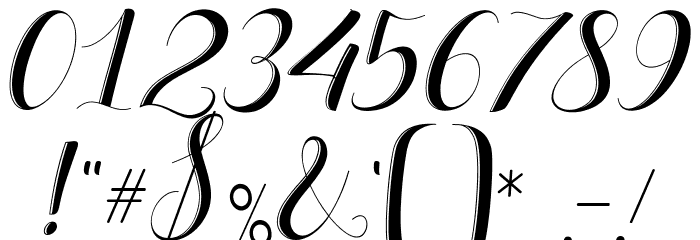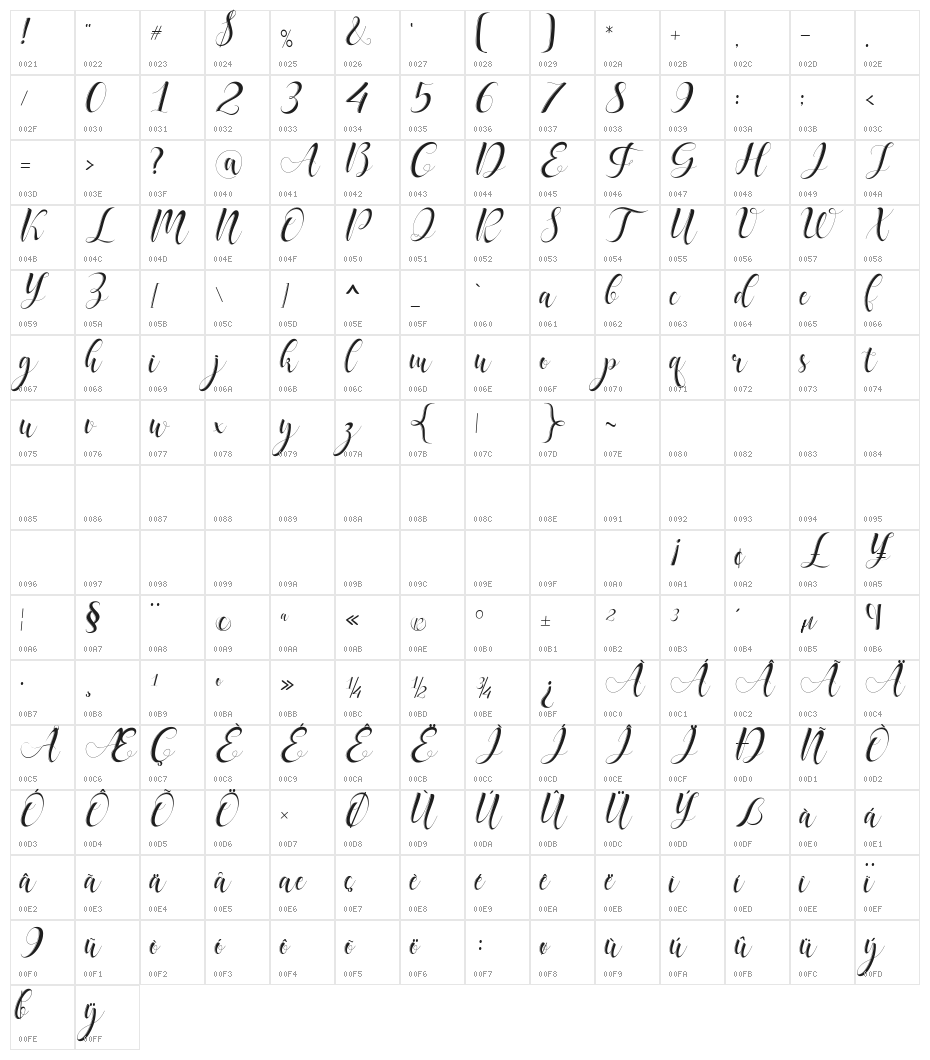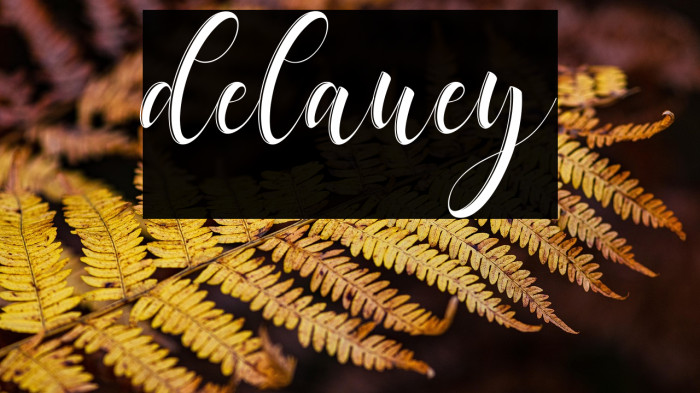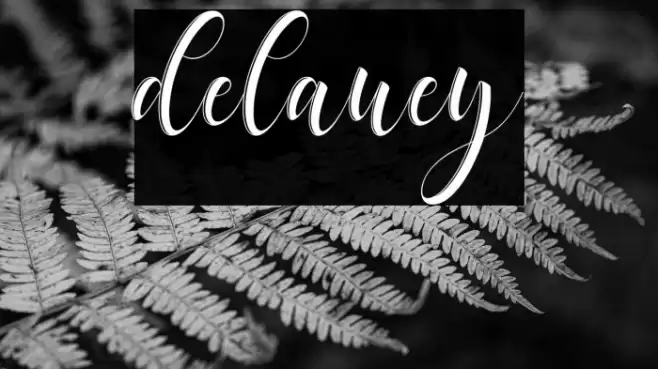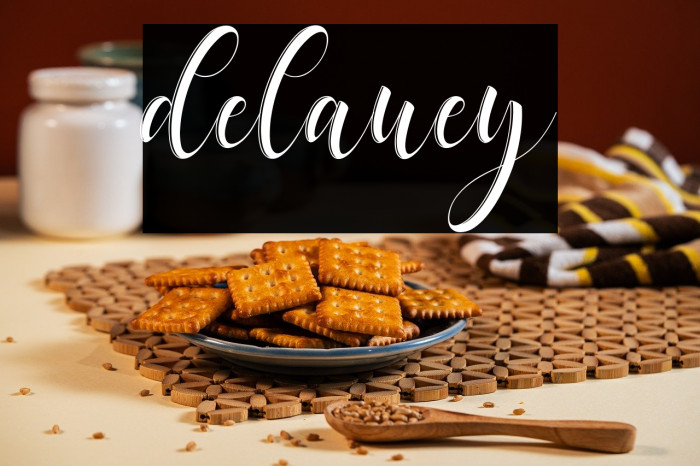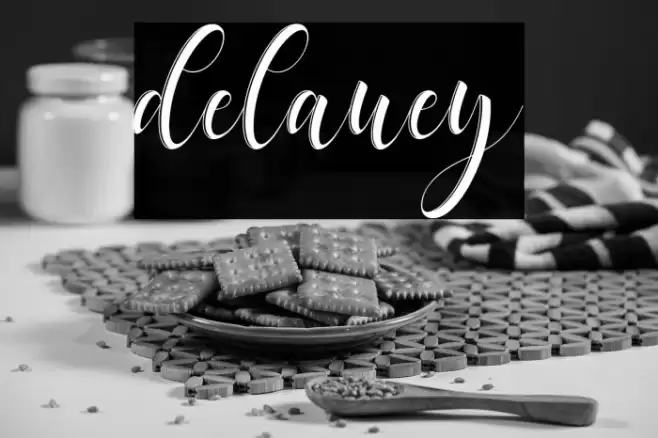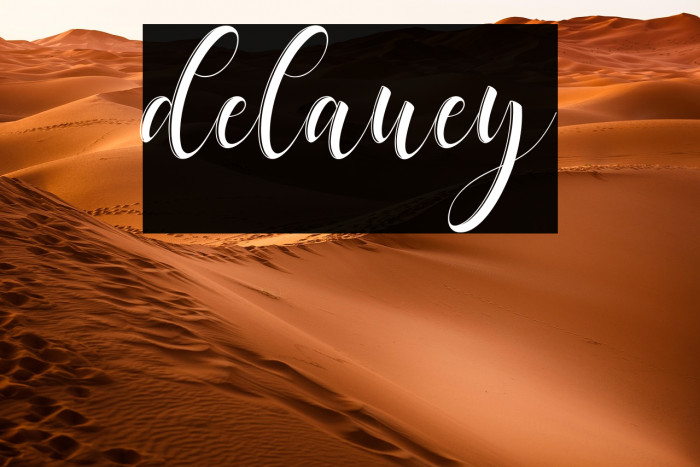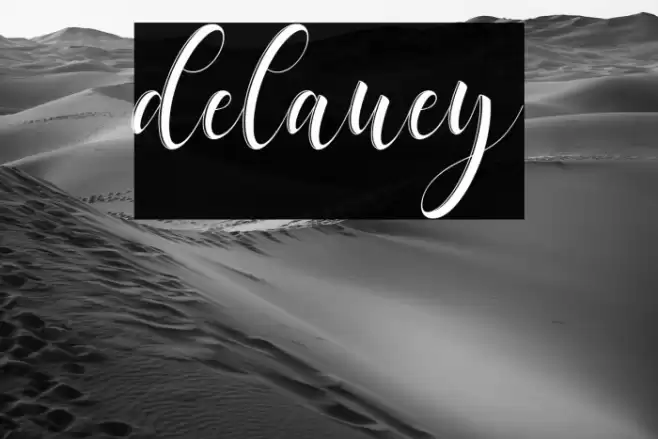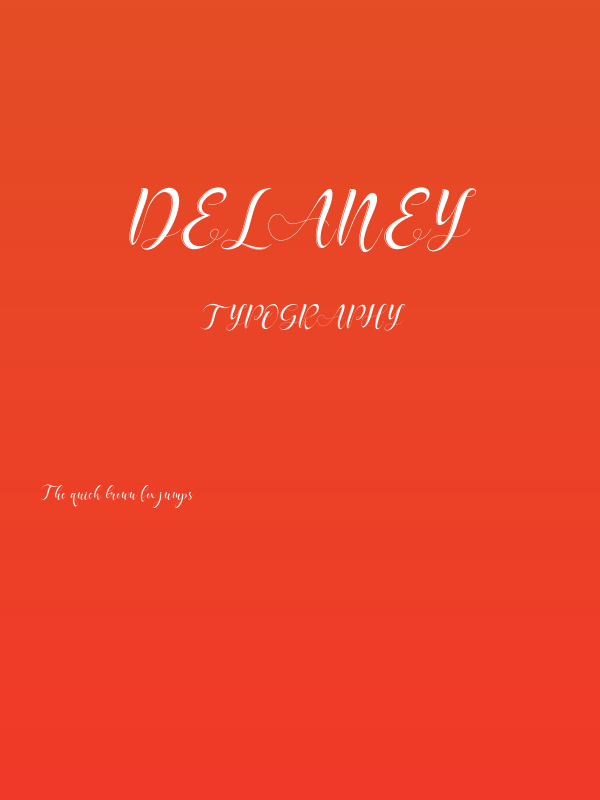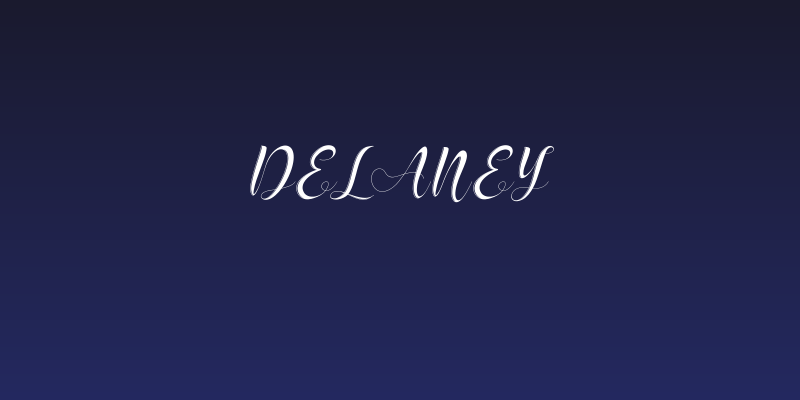
delaney Font
delaney Description
This elegant script font features flowing, cursive letters with intricate swashes and flourishes. The uppercase letters are particularly ornate, with extended loops and curves that give a sense of movement and grace. The lowercase letters maintain a consistent style, offering a harmonious blend of thick and thin strokes that enhance readability while maintaining a decorative flair. Numbers and special characters are designed with the same attention to detail, ensuring a cohesive look across all text elements. This font is perfect for adding a touch of sophistication and elegance to any design project.
| Proposed Projects | Ideal for wedding invitations, elegant branding, luxury packaging, and decorative headlines. |